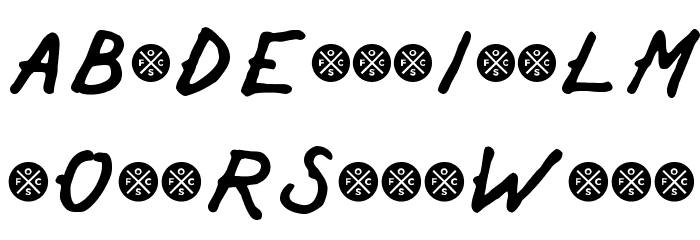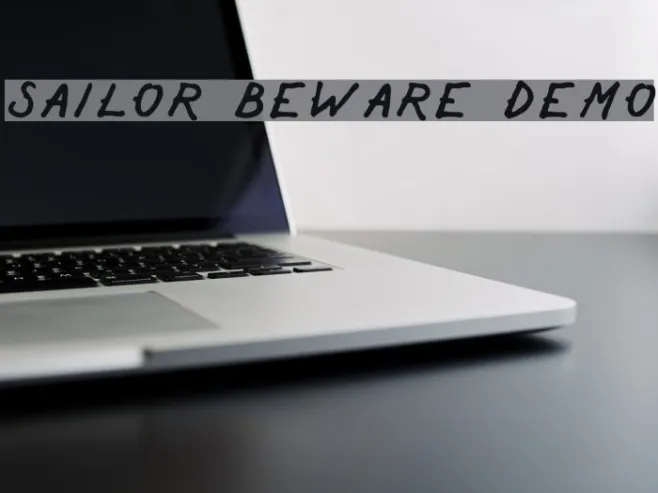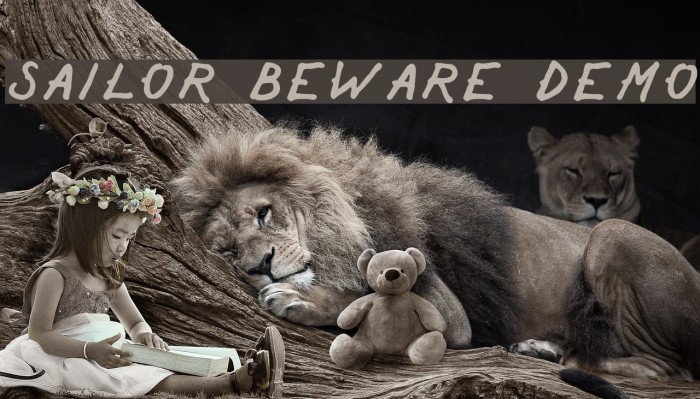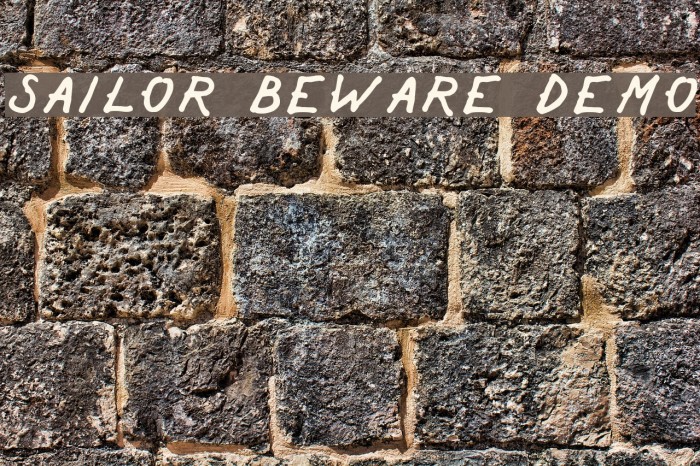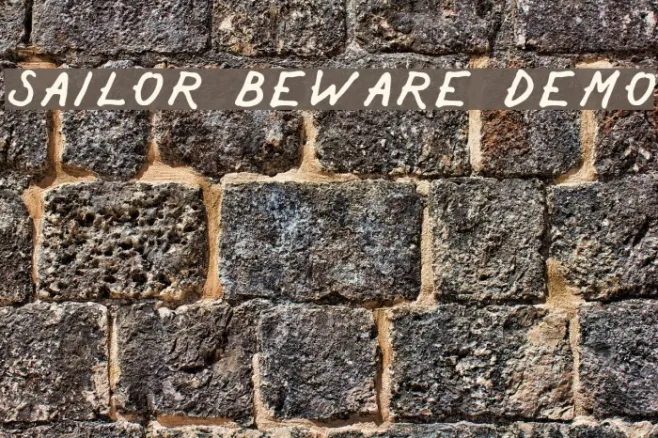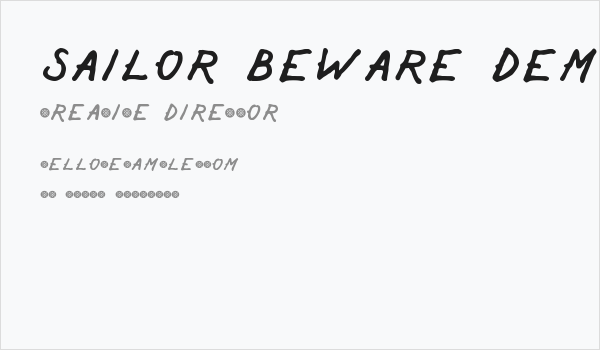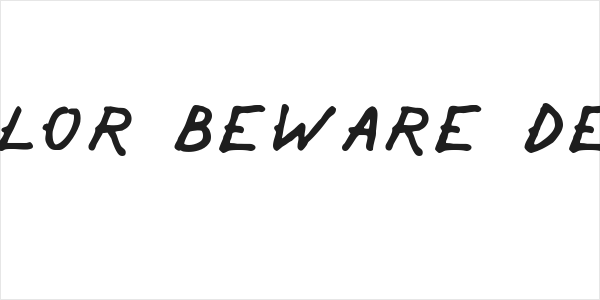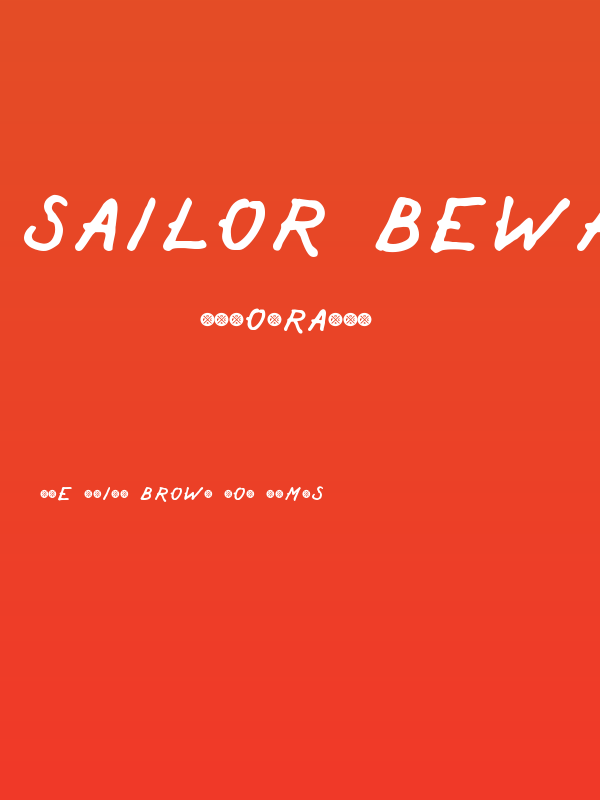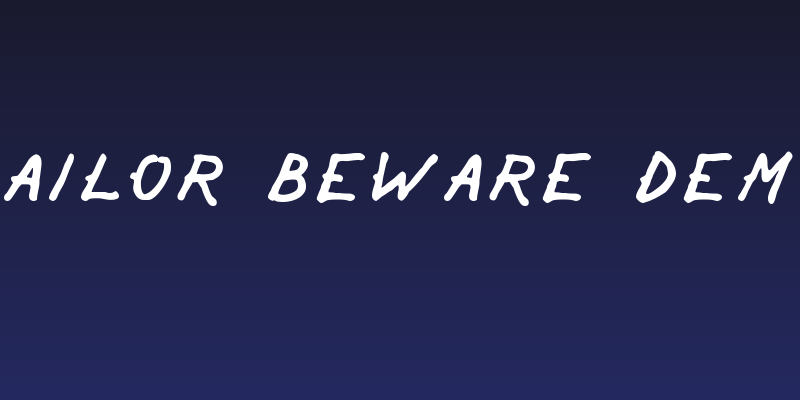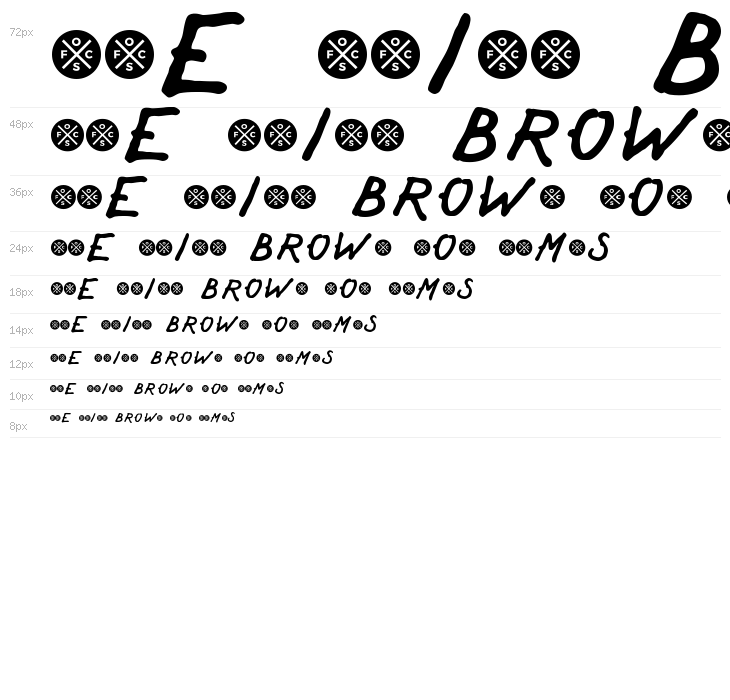
Sailor Beware Demo Font
Sailor Beware Demo Description
This font features a playful and dynamic handwritten style, characterized by its bold strokes and slightly irregular letterforms. The letters have a casual, informal appearance, with a slight slant that adds to their energetic feel. The uppercase and lowercase letters maintain a consistent style, with rounded edges and a smooth flow between characters. The font's unique personality is further emphasized by the inclusion of decorative symbols, which add a whimsical touch. Overall, this font exudes a sense of creativity and spontaneity, making it ideal for projects that require a fun and approachable aesthetic.
| Proposed Projects | Great for greeting cards, children's book covers, playful branding, and creative posters. |